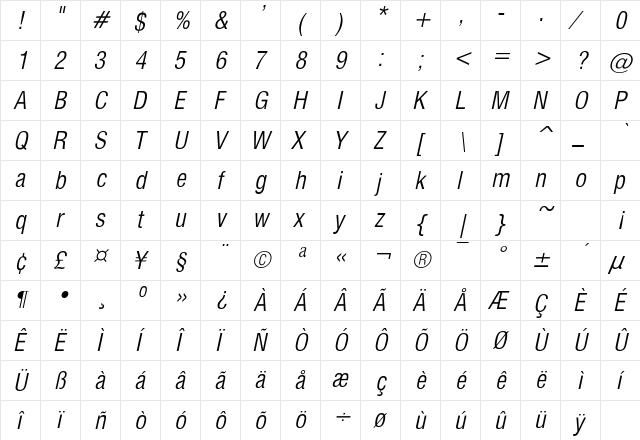
CorporateCondensed LightOblique Font Preview
Design Context for CorporateCondensed Typeface
CorporateCondensed offers clean, dependable letterforms without strong stylistic allegiance, making it a practical choice for designers who need flexibility. The slanted form adds forward momentum and visual energy. The delicate stroke weight brings airiness and refinement to layouts. The condensed width makes it efficient for tight spaces without sacrificing legibility.